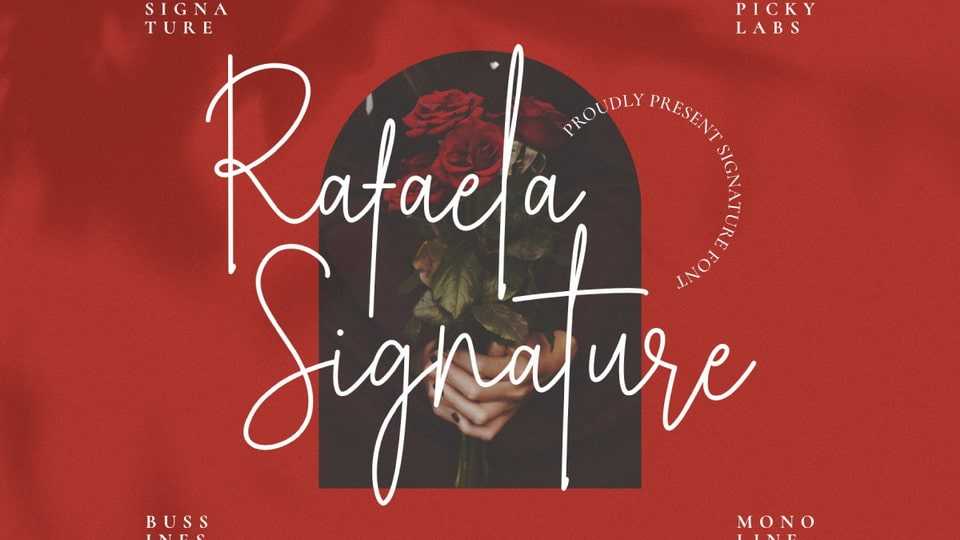
Download Rafaela Signature font, a simple monoline script typeface with an elegant style. Its lovely charm makes Rafaela Signature appear wonderfully down-to-earth, readable, and, ultimately, incredibly versatile.
Designer: Picky Labs